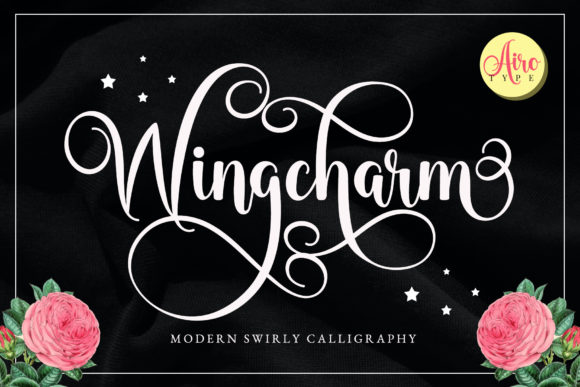
Introducing Wingcharm Font, the epitome of beauty and majesty in the world of handwritten fonts. This captivating script font, created by airotype, is the perfect choice for all your design needs.
Whether you're designing business cards, wedding invitations, or eye-catching banner ads, Wingcharm Font will elevate your creations to a whole new level. With its elegant and graceful strokes, this font exudes a sense of sophistication and charm that is sure to leave a lasting impression.
But what sets Wingcharm Font apart from the rest? Its PUA encoding allows you to effortlessly access all the glyphs and swashes, allowing for endless creative possibilities. Unleash your inner artist and let your designs flourish with the variety of options this font offers.
The versatility of Wingcharm Font is truly remarkable. It seamlessly adapts to any project, effortlessly enhancing the visual appeal. Whether you're aiming for a vintage-inspired look or a modern and sleek design, this font has got you covered.
Embrace the power of Wingcharm Font and watch your designs come to life. Let its enchanting curves and artistic flair captivate your audience and evoke a myriad of emotions. From elegance to playfulness, this font effortlessly conveys the message you want to share.